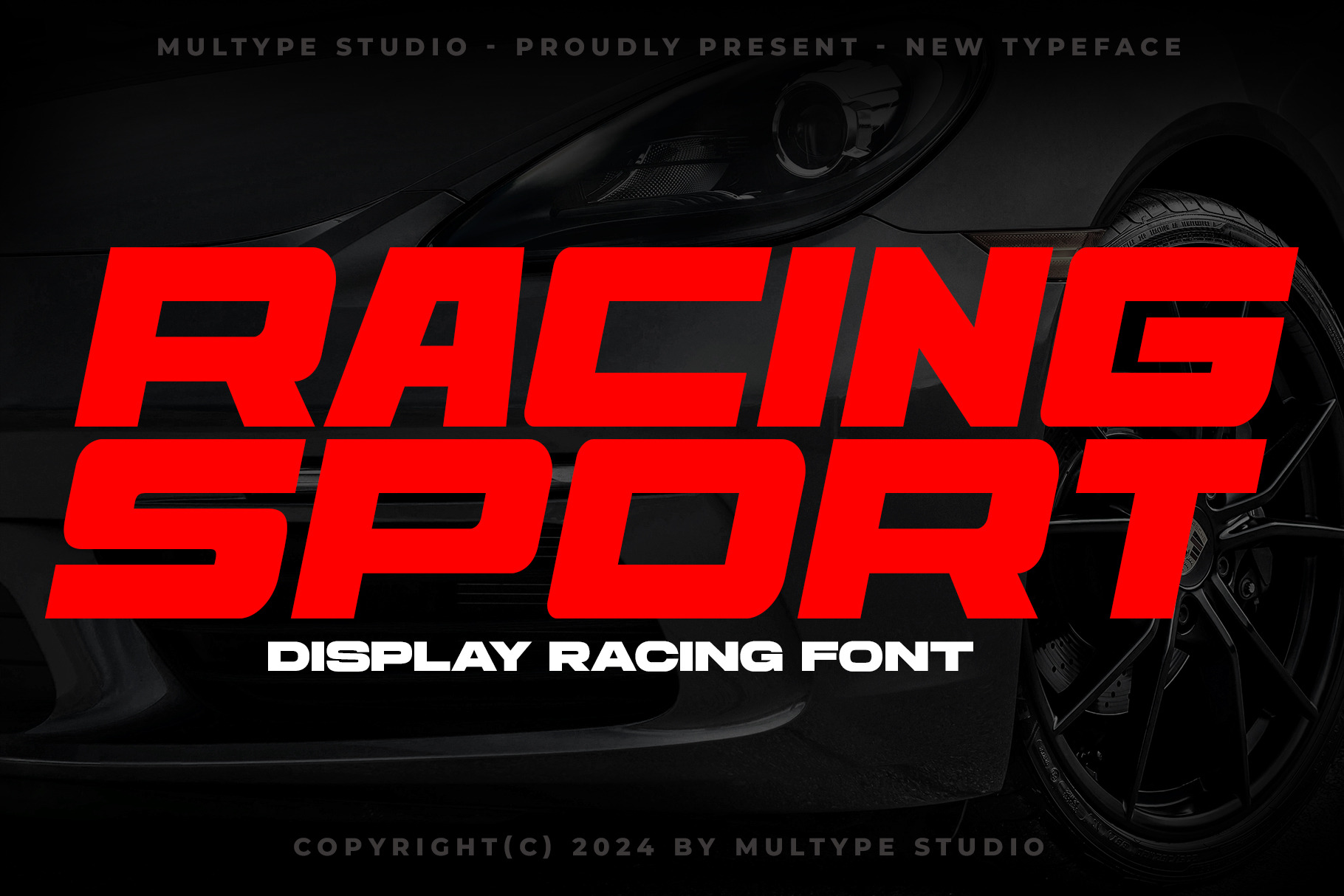
Racing Sport Display Typeface
Racing Sport Display is a font with a racing and sport theme. The rounded, slanted shape makes this font stand out because of its thickness and looks strong and very sporty. Racing Sport Display is perfect for racing product logos, racing game covers, sporting events, automotive posters, automotive magazine covers, branding, product designs, labels and other creative projects.
- All Caps
- Numbers & Symbols